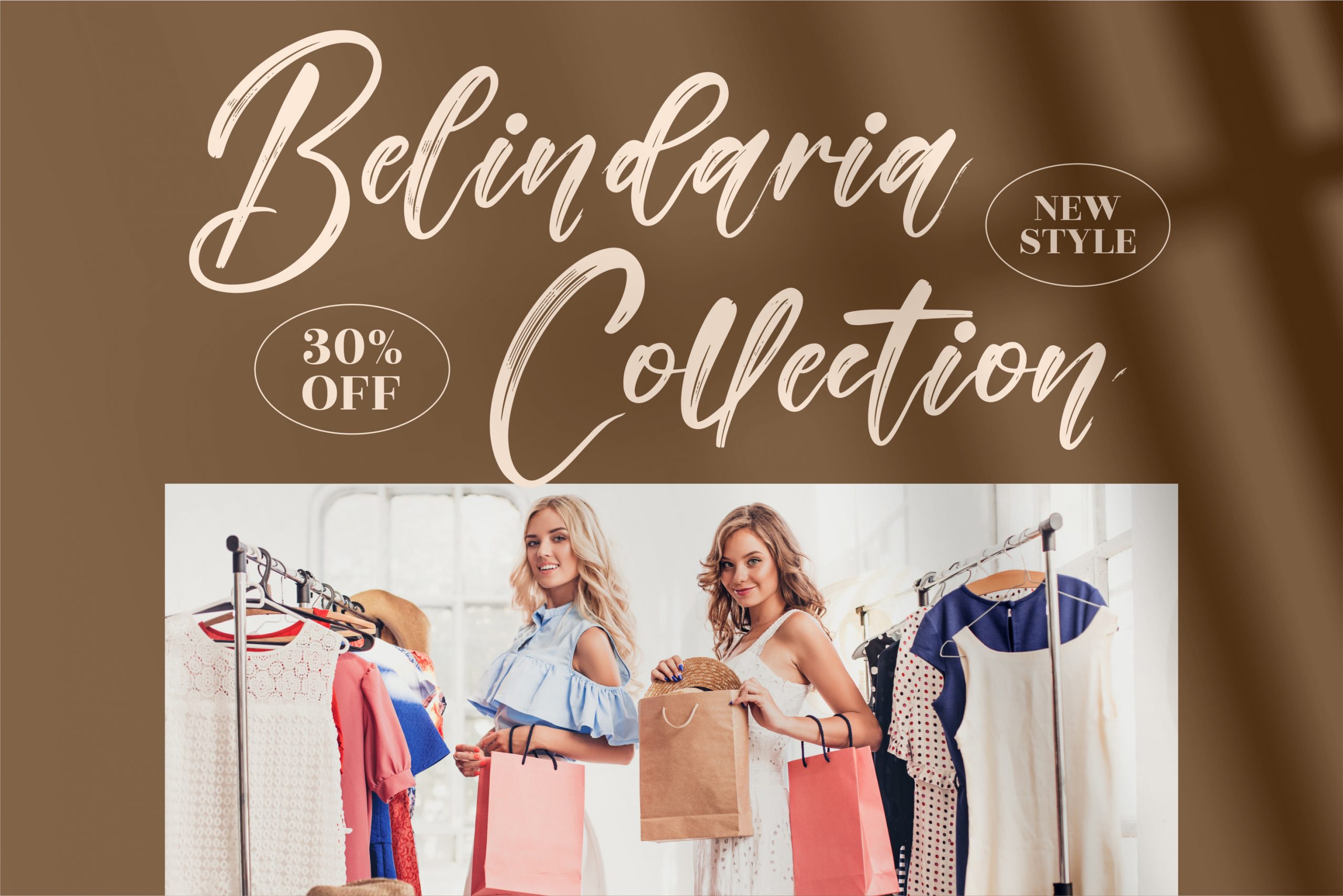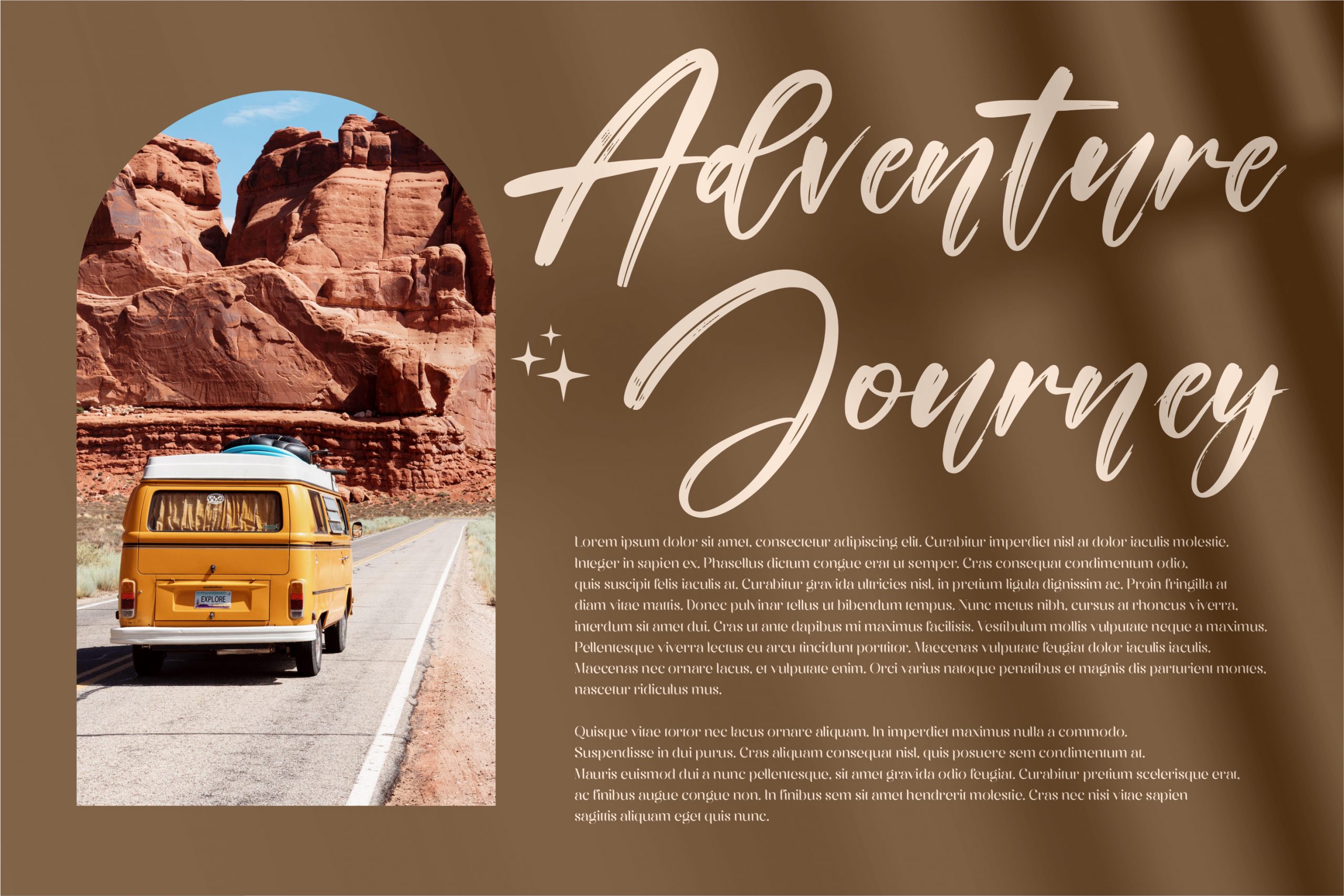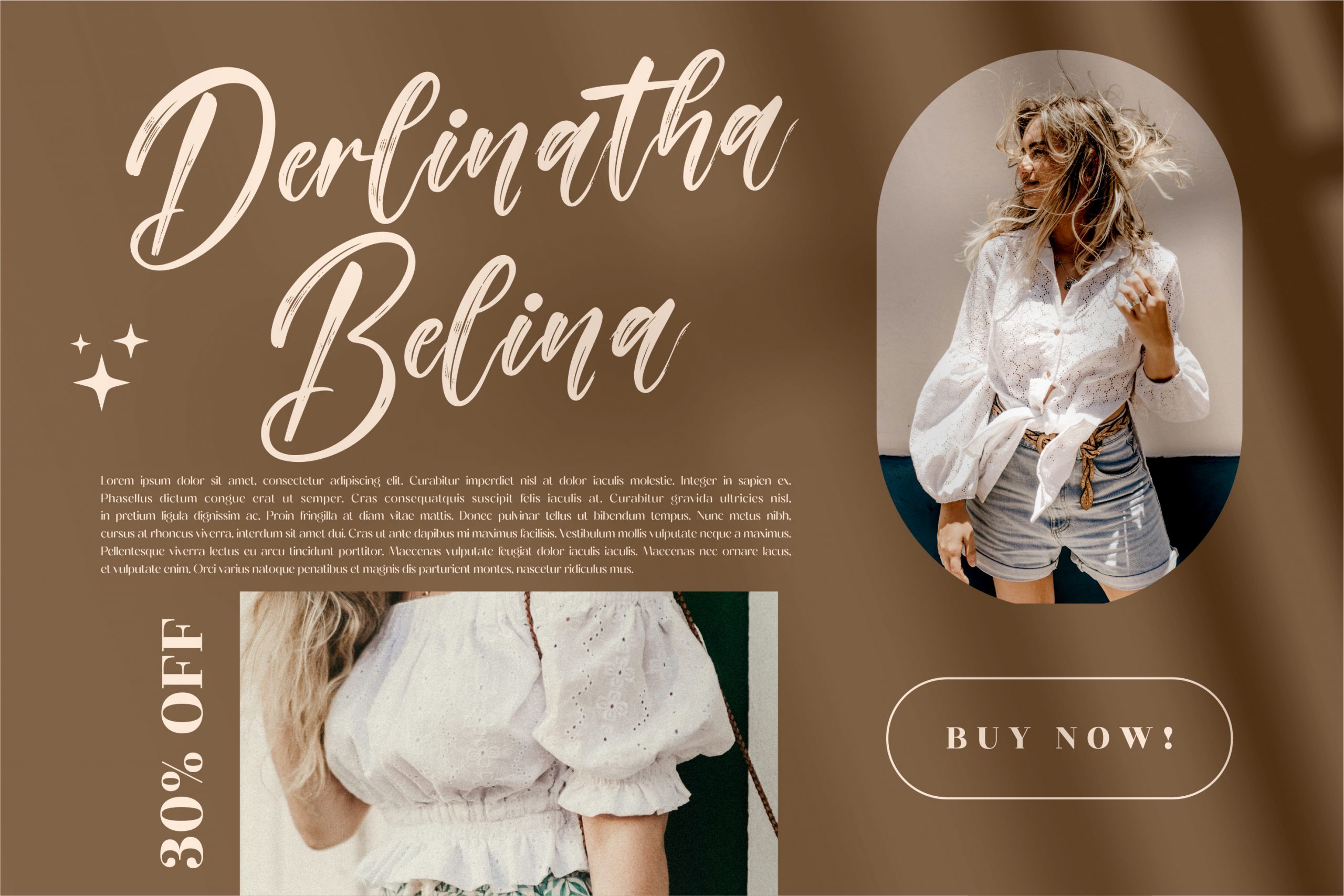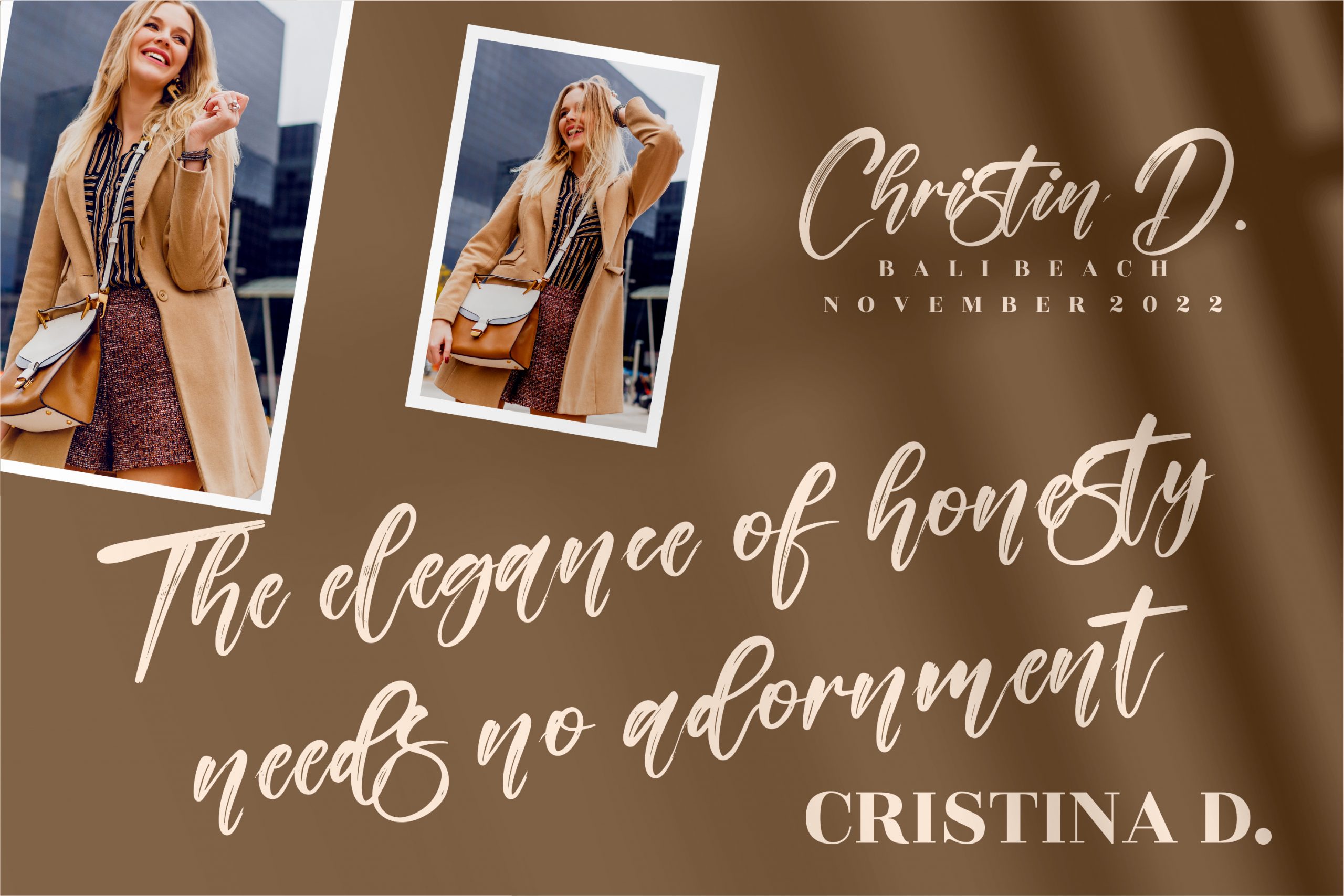
Cinderela Font
Cinderela Brush Font
This is a handwritten font, suitable for any projects such as: logos, branding projects, homeware designs, product packaging, mugs, quotes, posters, shopping bags, t-shirts, book covers, name card, invitation cards, greeting cards, label, photography, watermark, special events, and all your other luxury projects that need a handwritten taste.